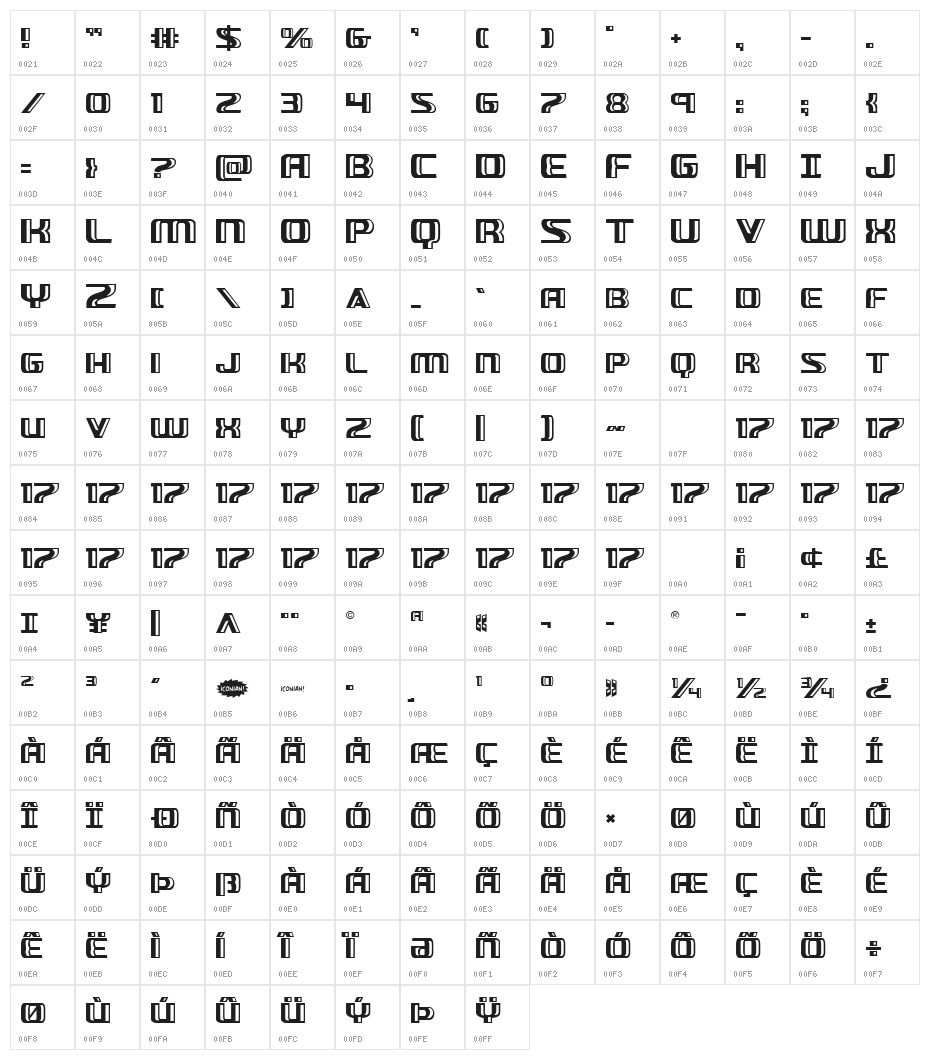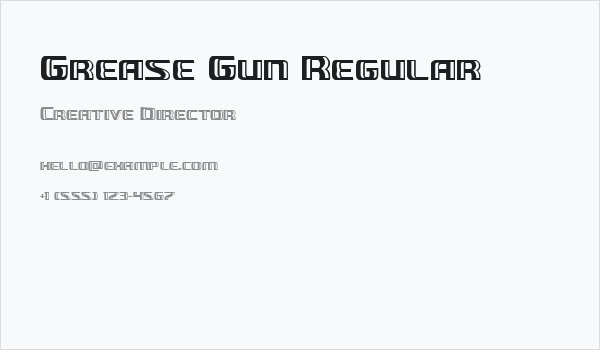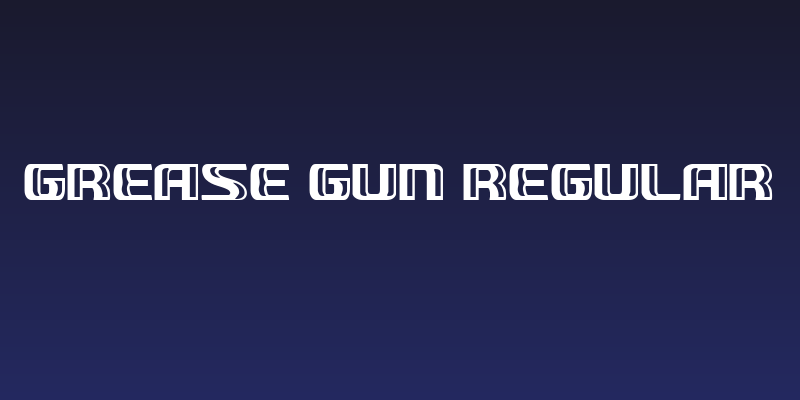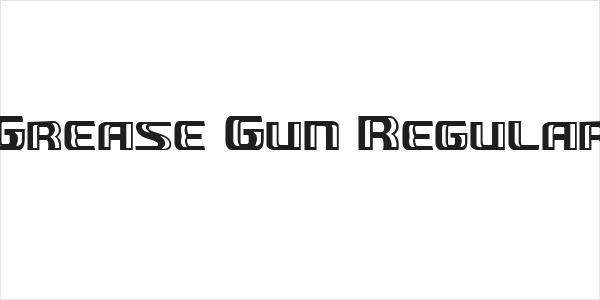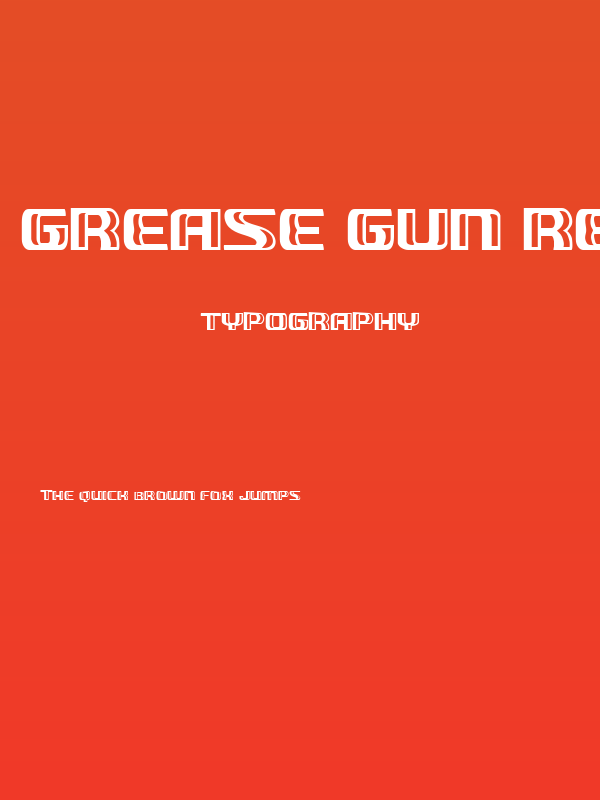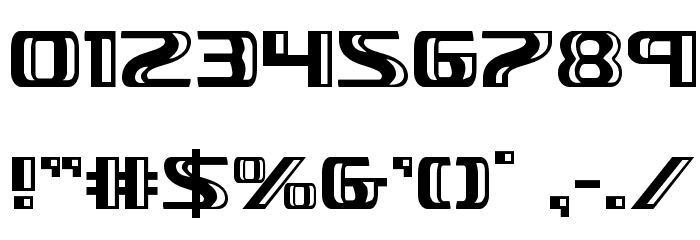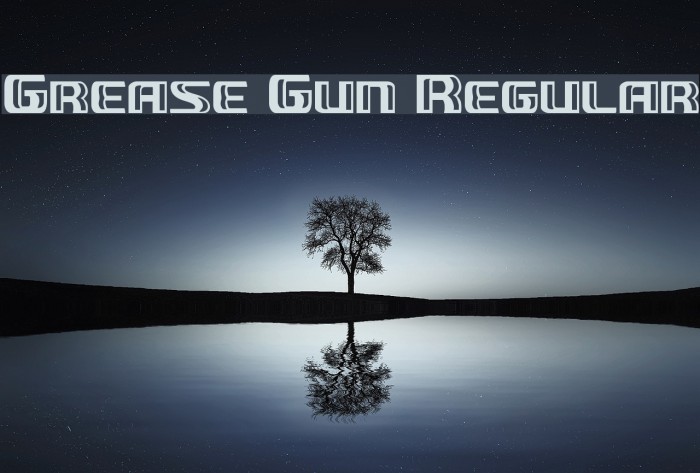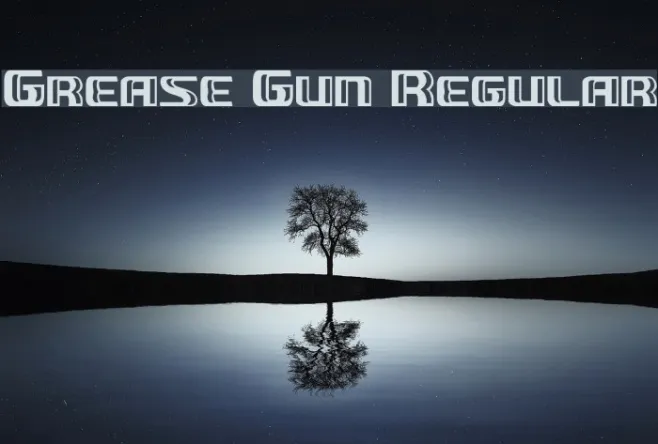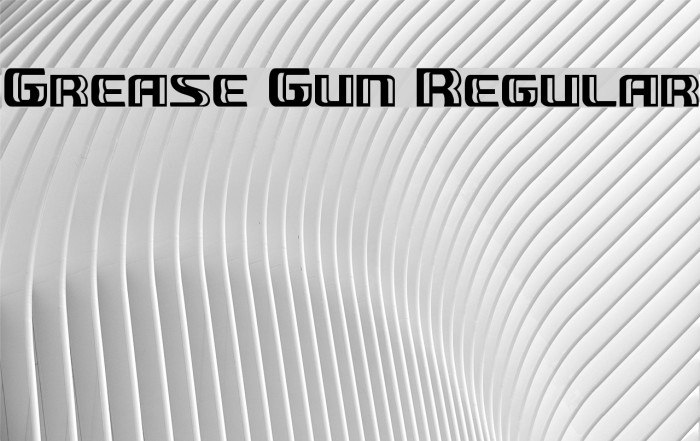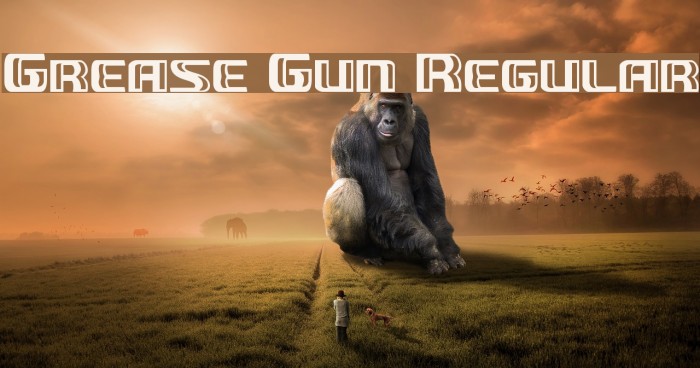
Grease Gun Regular Font
Grease Gun Regular Description
This font features a bold, industrial design with a strong geometric structure. The characters are constructed with thick, block-like forms that give a sense of strength and durability. The font has a distinct, mechanical feel, reminiscent of machinery and engineering. The uppercase and lowercase letters maintain a consistent style, with angular edges and a uniform width. The numerals and special characters follow the same design principles, ensuring a cohesive look across all elements. This font is ideal for projects that require a bold, impactful presence.
| Proposed Projects | Ideal for branding, posters, and signage in industrial or mechanical-themed projects. |